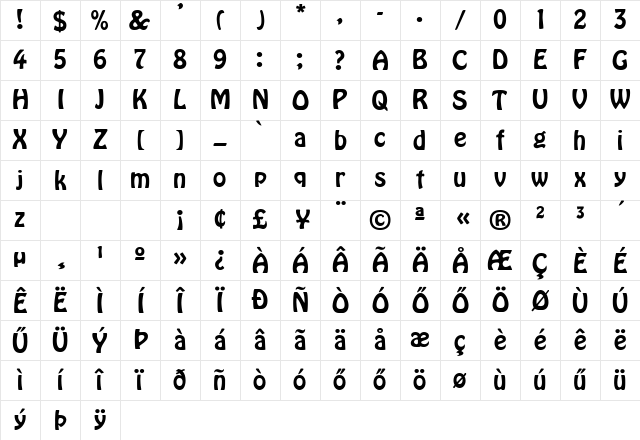
H_HomewardBound Regular
Design Context for H_HomewardBound
H_HomewardBound is a composed and adaptable typeface that performs quietly and consistently across a wide range of design contexts.